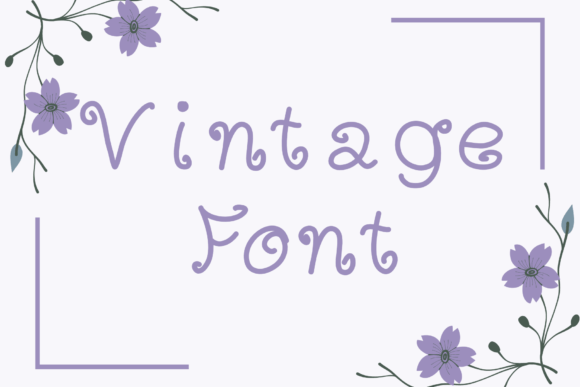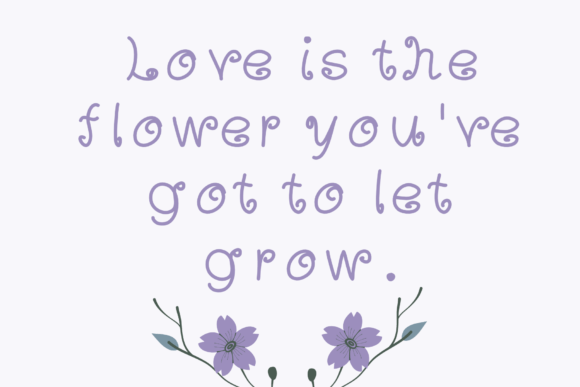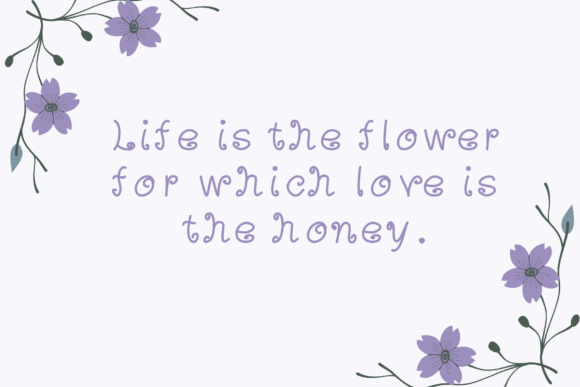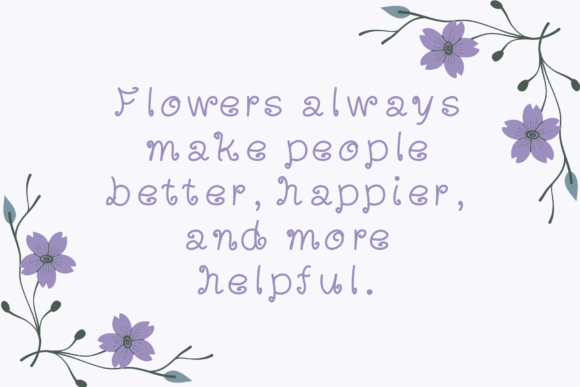
About Vintage Font
Vintage is a curly and cute handwritten font that instantly adds a playful charm to your creative projects. Each letter is carefully designed to look warm, friendly, and unique. Whether you’re working on DIY crafts or professional designs, Vintage can help you express your ideas in a fresh and delightful way.
Whimsical Style for All Designs
This font brings a sense of nostalgia and whimsy to any project. The curly strokes and fun curves make it feel lighthearted and approachable. It’s perfect for:
Greeting cards and invitations
DIY crafts and scrapbooking
Children’s book covers and story titles
Custom t-shirts and tote bags
Labels and stickers
Social media graphics
Party decorations and banners
Handmade product packaging
When you want your message to feel personal and inviting, Vintage is an ideal choice.
Easy to Use in Any Project
Vintage is designed to be simple to work with, no matter your skill level. The clear, legible characters make it easy to read while still showing plenty of personality. You can use it for short words, longer phrases, or even entire paragraphs. Its clean design ensures it always looks polished.
A Unique Handwritten Look
What sets Vintage apart is its lovely, curly style. Each letter flows into the next with soft, natural movement. These flourishes create a special handcrafted feel that’s perfect for any design that needs a human touch.
The combination of charm and clarity means Vintage can adapt to many different themes. Use it for romantic projects, playful kids’ designs, or even vintage-inspired branding.
Ideal for Crafting and Small Business
Small business owners and crafters love Vintage because it helps products stand out. Use it to add an authentic touch to:
Boutique labels
Etsy product tags
Handmade soap packaging
Custom mugs and gifts
Event signage
Vintage makes your creations feel more personal and memorable.
Why You’ll Love Vintage Font
Designers choose Vintage because it offers:
Playful style: Soft curls and cute shapes
Readability: Clean letters that work in any size
Versatility: Suitable for personal or commercial projects
Warmth: A friendly, handmade feel
When you want your message to feel fun, approachable, and authentic, Vintage is the perfect font.
Add Personality to Your Designs
Typography is more than just letters—it’s the emotion behind your message. Vintage helps you share that feeling. Whether you’re crafting invitations, designing a logo, or creating social media content, this font will bring a smile to your audience.